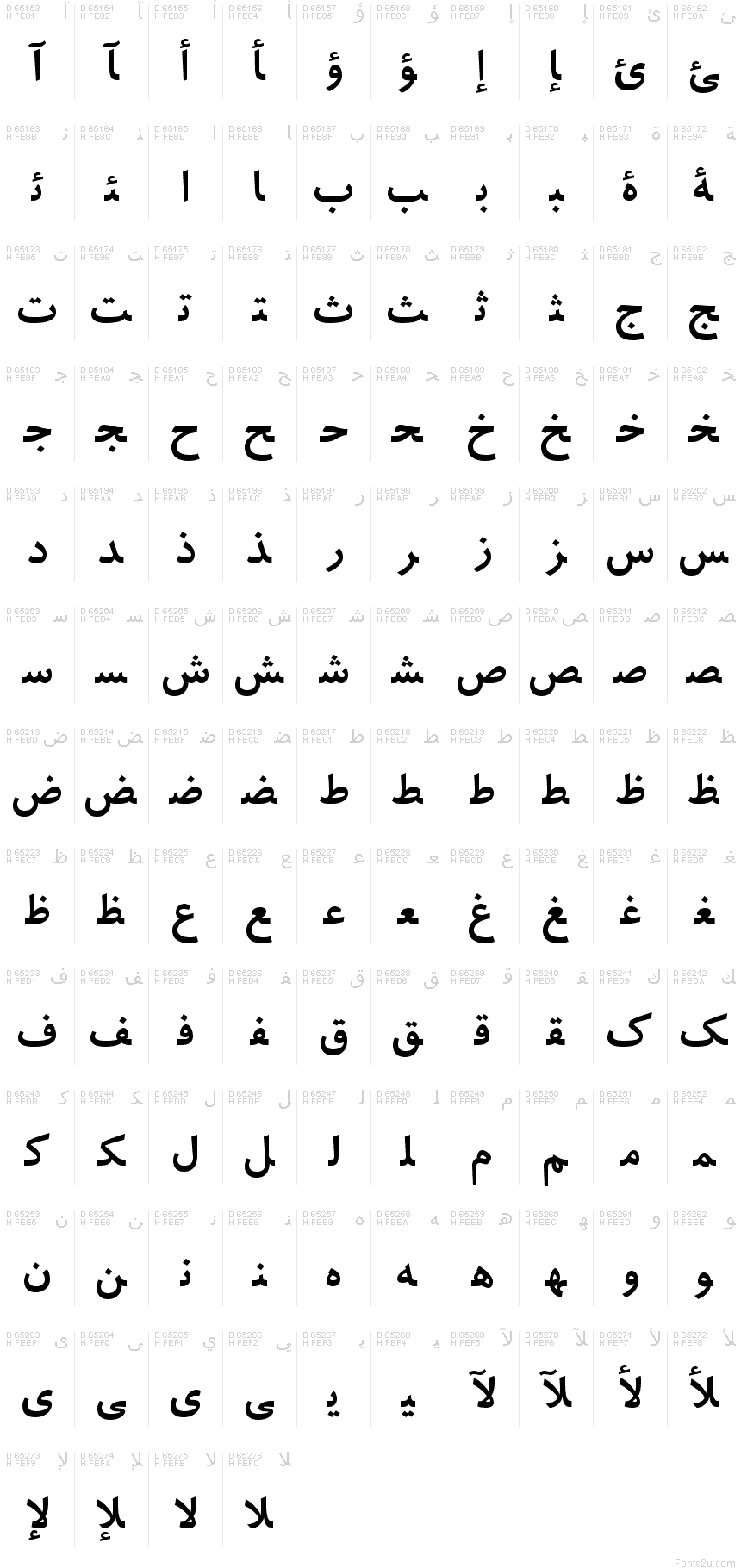
B Roya Bold, by Borna Rayaneh, is a free Arabic bold font with a compact, confident rhythm. The letters feel smooth and full, with rounded curves, firm vertical weight, and a modern Naskh-influenced tone that keeps the script formal without becoming stiff.
It fits branding, editorial headings, packaging, posters, and interface titles where Arabic needs presence without ornate detail. As a free font, it also makes sense for short cover lines, mastheads, and title cards, because the dense strokes and controlled curves give brief words a solid, composed silhouette.